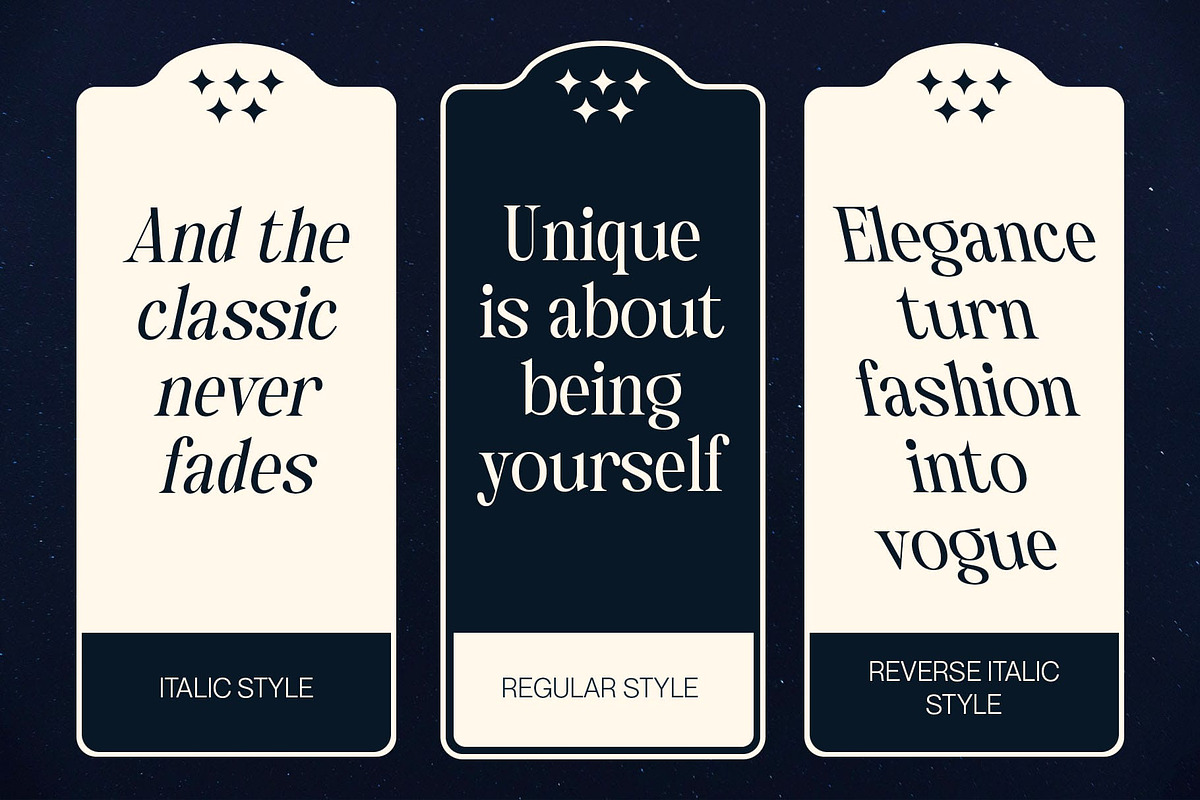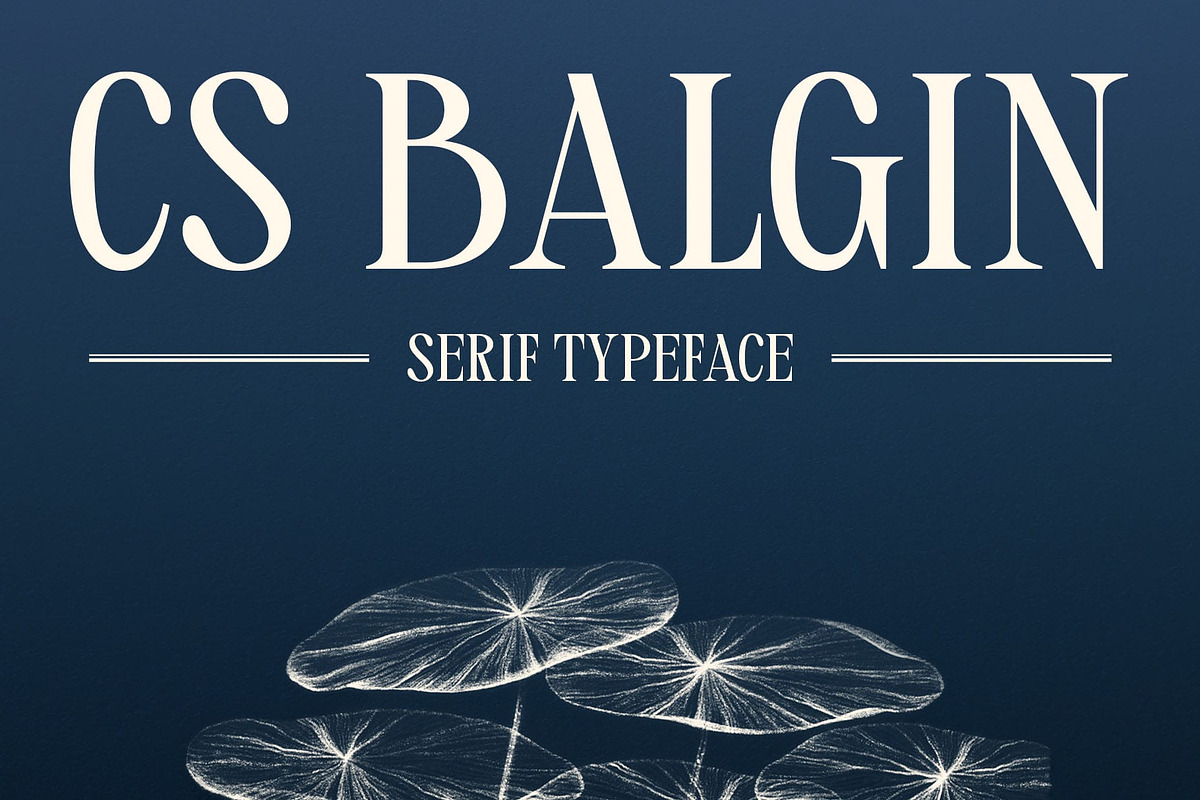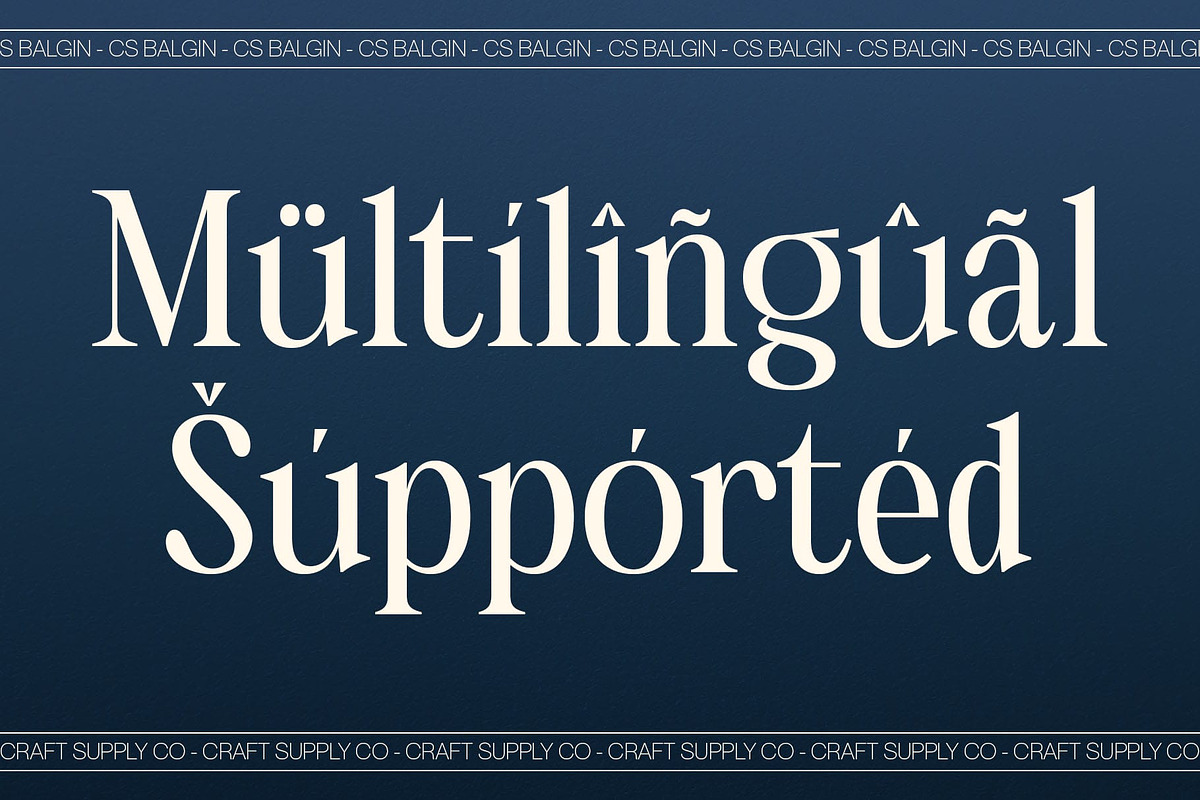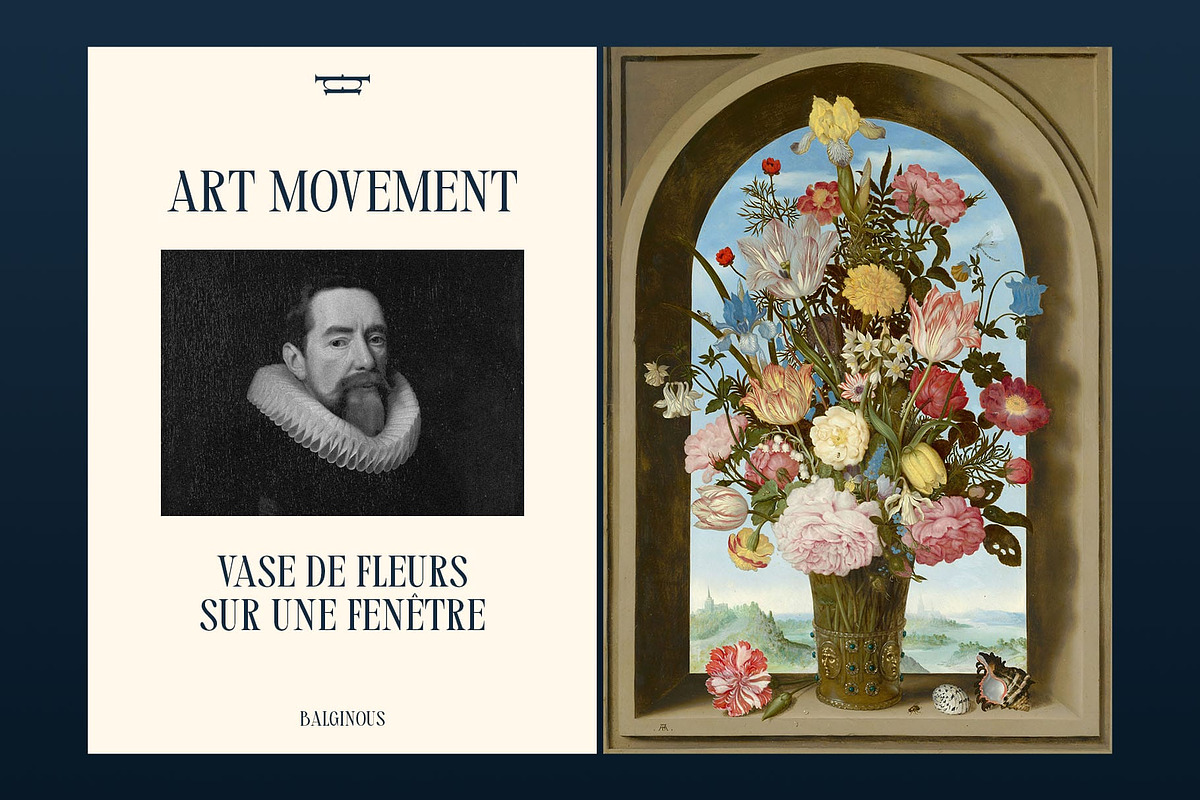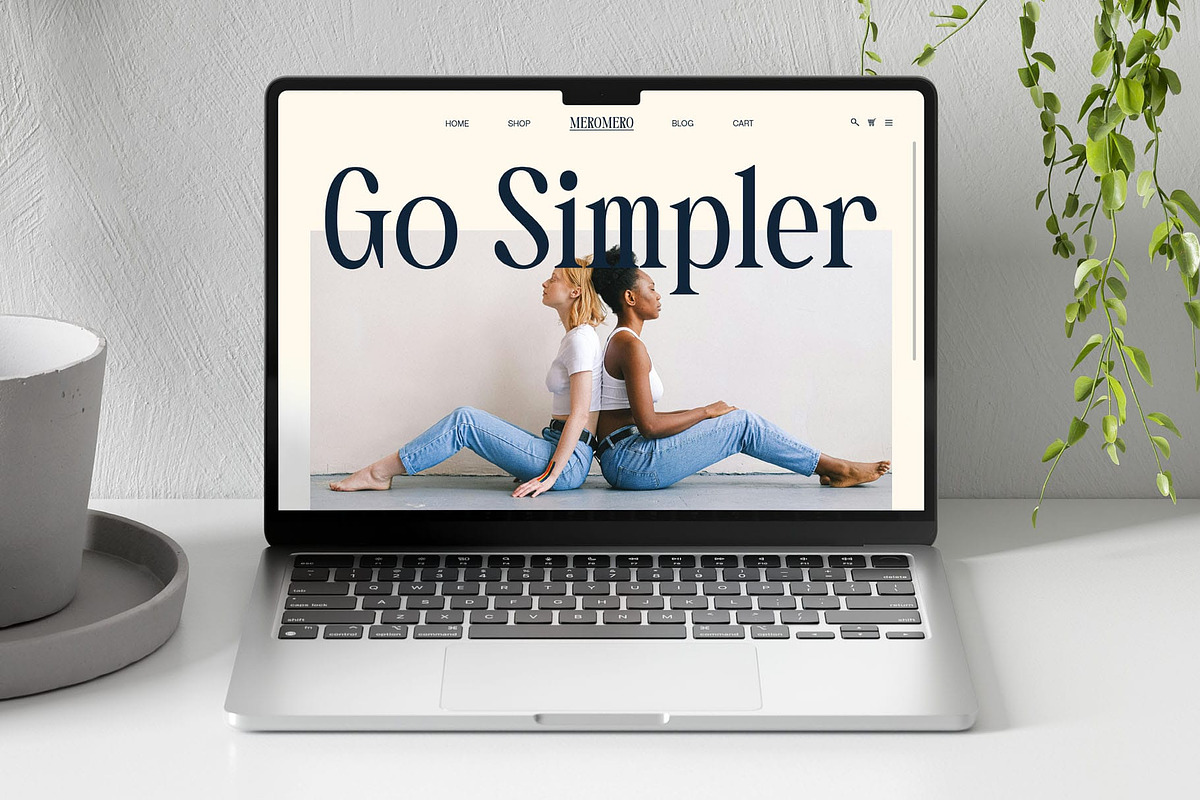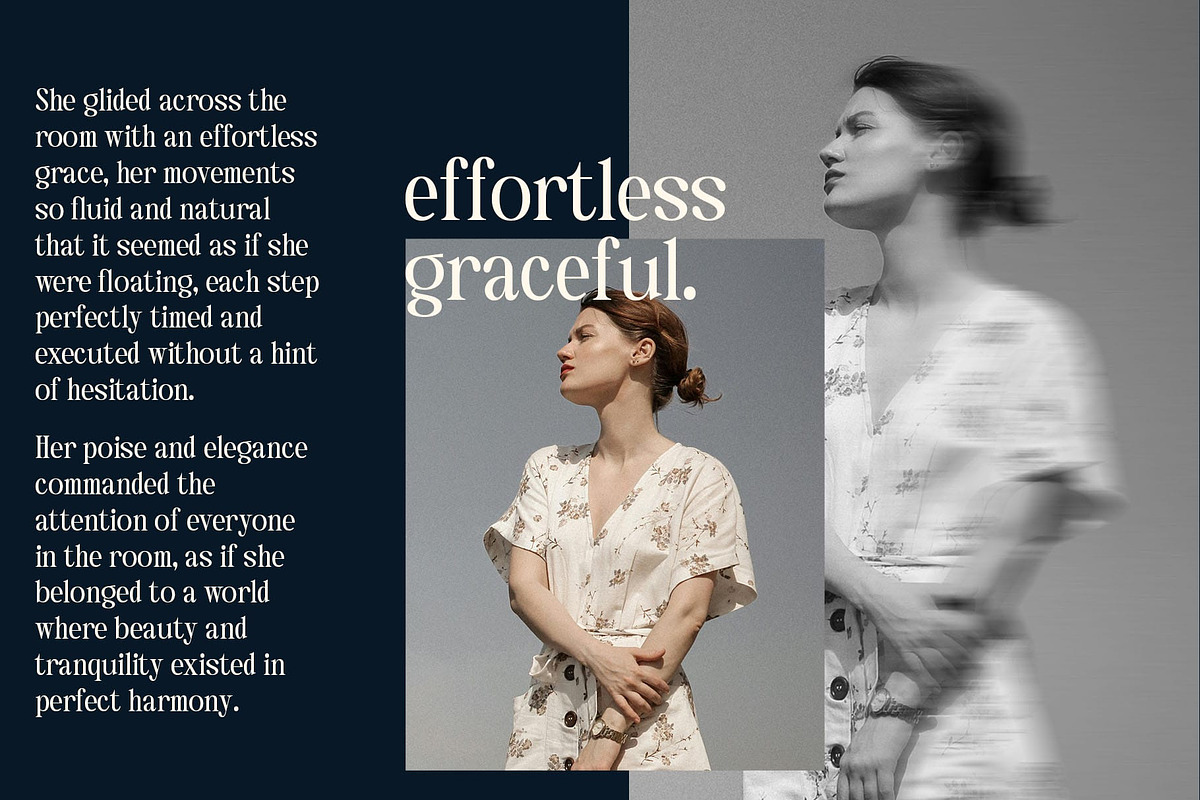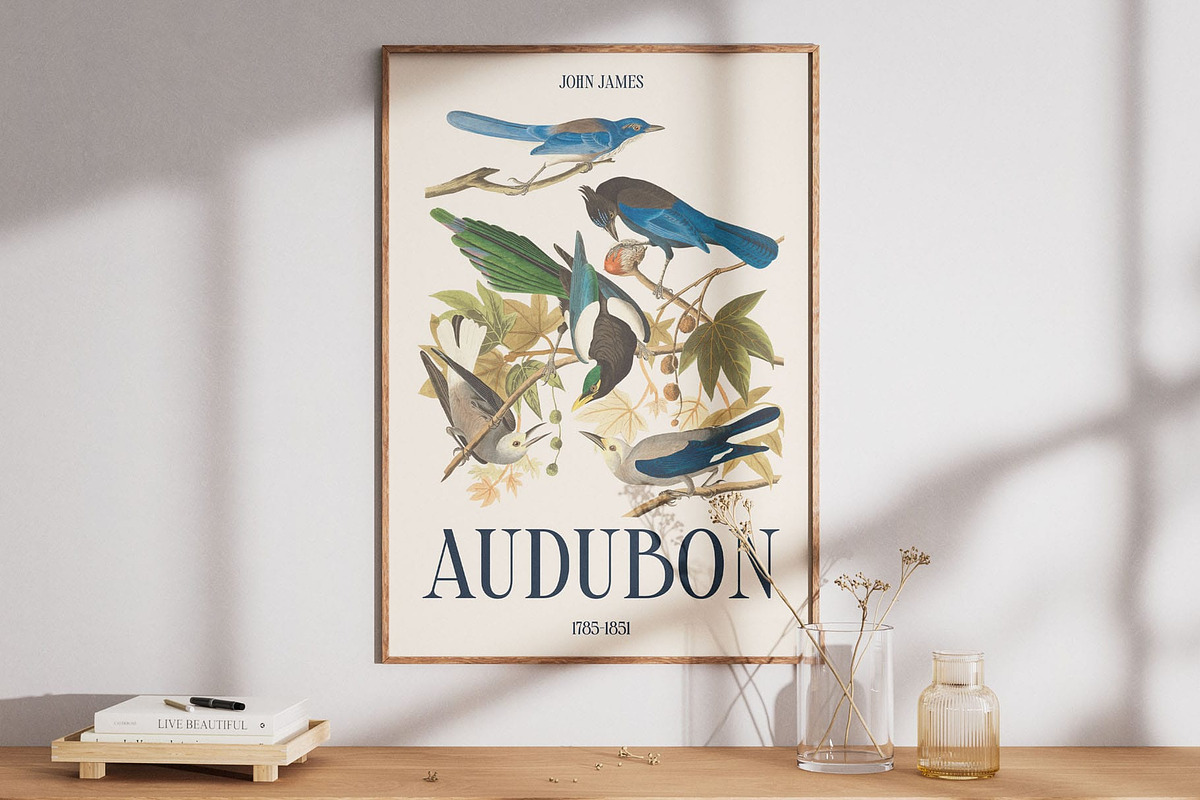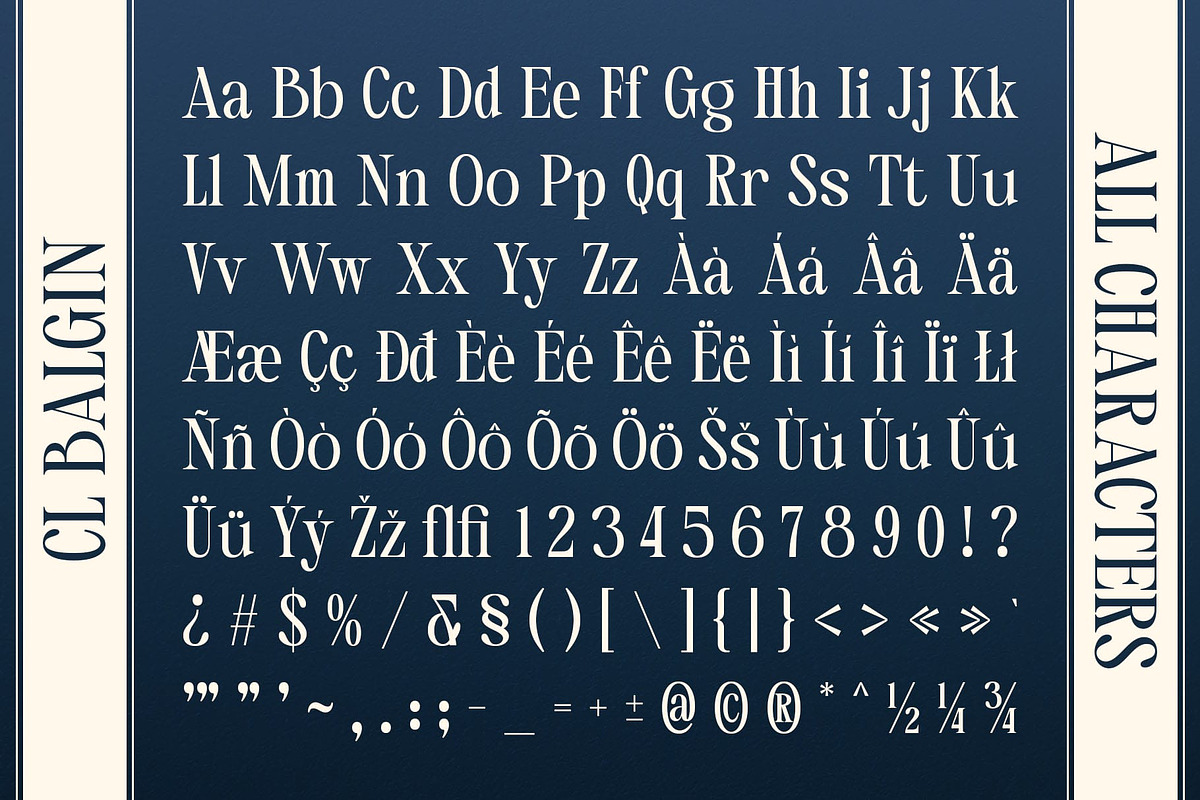
CS Balgin – Classic Font
CS Balgin – Classic Font: A Timeless Blend of Elegance and Luxury
Modern Classic Serif with a Luxurious Touch CS Balgin is a modern classic serif font that embodies sophistication and refinement. With its balanced proportions, fine contrast, and sharp details, this font radiates an upscale and timeless appeal. Designed to capture the essence of luxury, it is an ideal choice for high-end branding, premium publications, and elegant design compositions.
Delicate Serifs for an Exclusive Appearance Featuring slender letterforms with subtle yet distinctive serifs, CS Balgin offers a perfect balance between tradition and modernity. The refined curves and sharp edges create an exclusive feel, making this font a great addition to fashion editorials, high-end product packaging, and premium wedding invitations. Its graceful design enhances readability while maintaining an aura of prestige.
Perfect for Luxury and High-End Branding CS Balgin’s sophisticated look makes it a top choice for luxury brands, fashion labels, and upscale marketing materials. Whether used for logos, elegant headlines, or editorial layouts, this font elevates any design with a touch of class and exclusivity. Its fine contrast between thick and thin strokes adds a polished and artistic quality that resonates with refined aesthetics.
- CS Balgin Regular
- CS Balgin Italic
- CS Balgin Reverse Italic